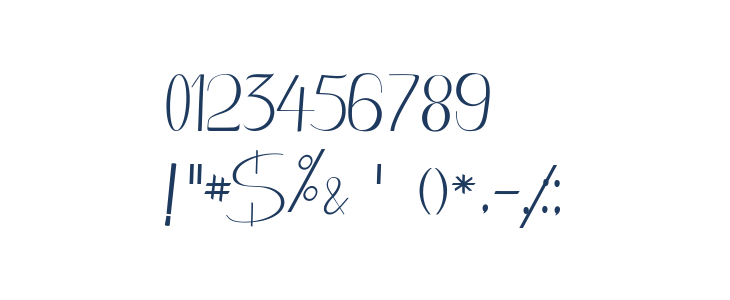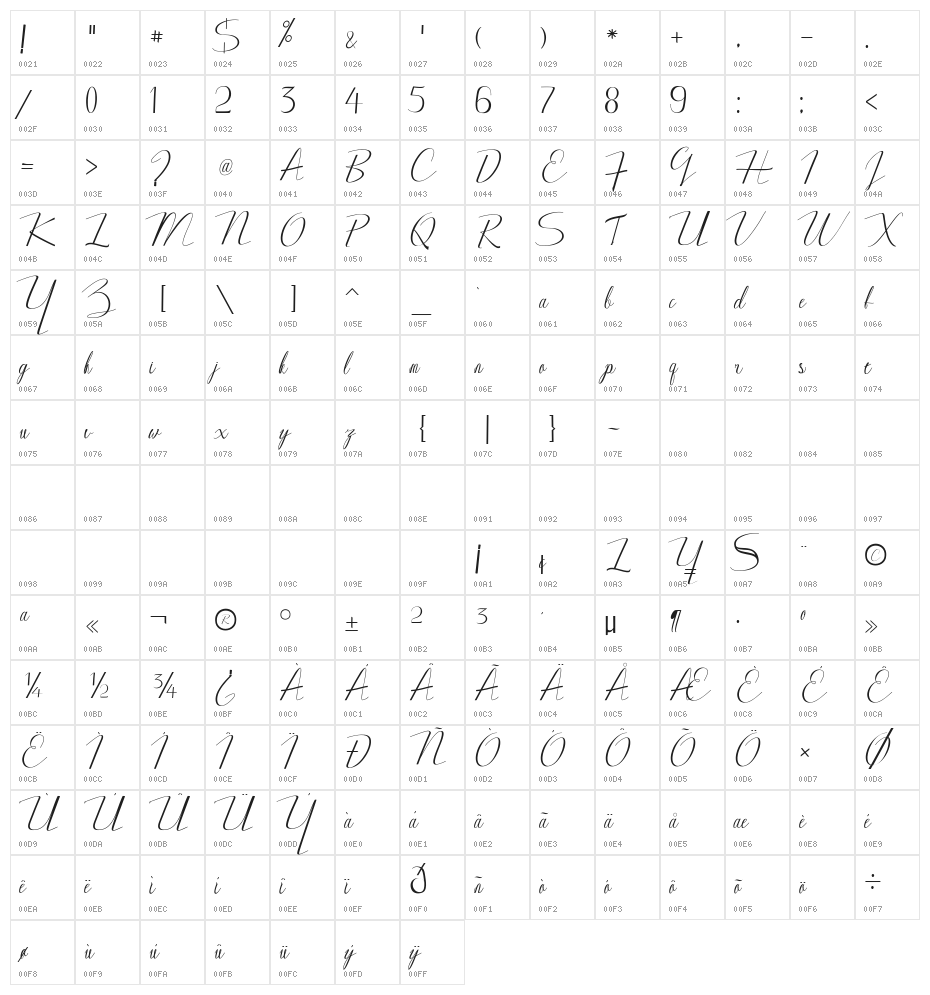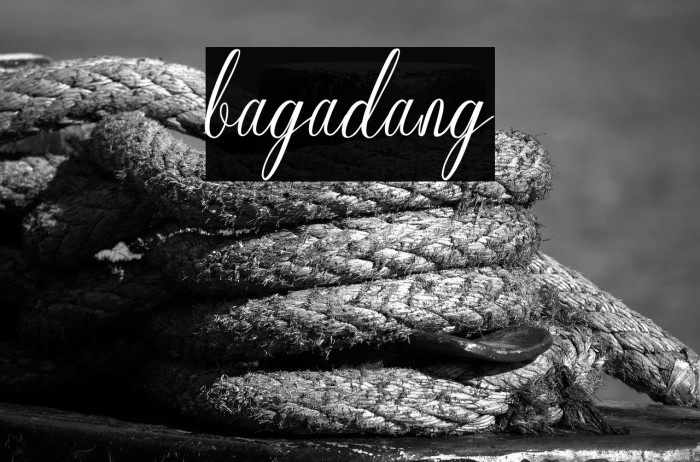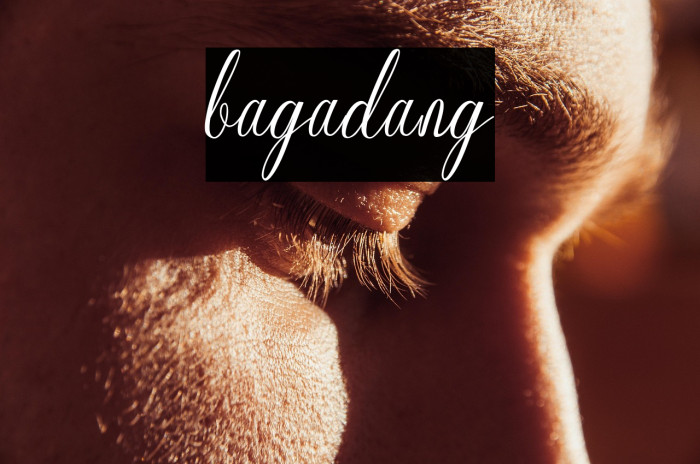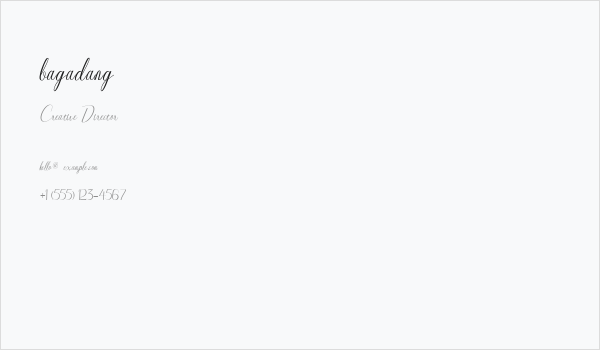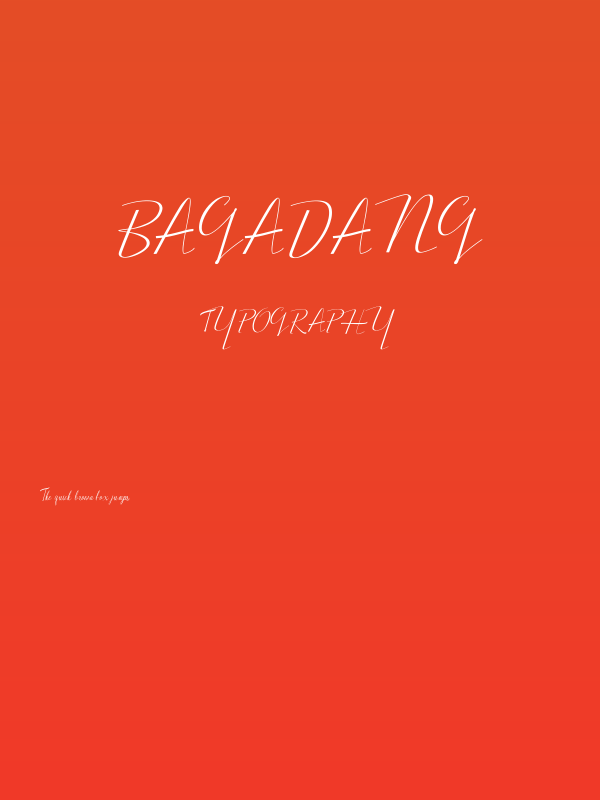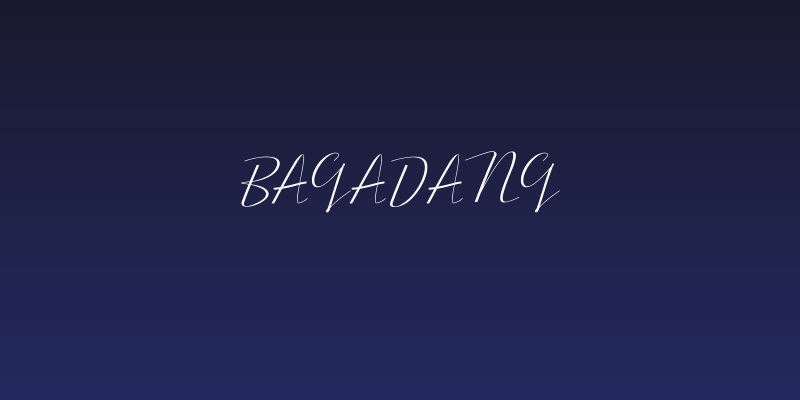
bagadang Font
bagadang Description
This elegant script font features a flowing, cursive style that exudes sophistication and grace. The uppercase letters are characterized by sweeping, elongated strokes with a slight slant, giving them a dynamic and fluid appearance. The lowercase letters maintain a consistent style, with smooth curves and delicate connections between characters. The numerals are designed with a similar flair, incorporating subtle curves and a balanced weight. Special characters are thoughtfully crafted to match the overall aesthetic, ensuring a cohesive look across all glyphs. The font's thin strokes and high contrast between thick and thin lines enhance its refined and stylish nature, making it ideal for formal and decorative applications.
| Overall Style | Elegant, Sophisticated |
| Use Case | Invitations, Branding, Packaging |
| Proposed Projects | Perfect for wedding invitations, elegant branding, luxury product packaging, and sophisticated editorial design. |